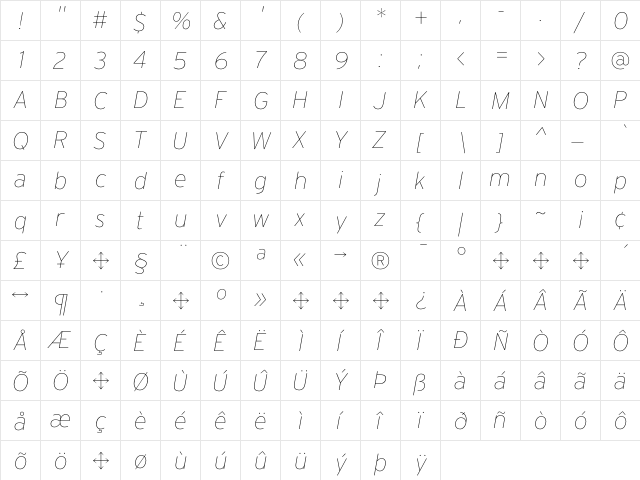
Interstate Thin Italic
Design Context for Interstate Typeface
Interstate is a composed and adaptable typeface that performs quietly and consistently across a wide range of design contexts. The slanted form adds forward momentum and visual energy. Its slender proportions lend an understated elegance to any composition.
Pro Tip: Try Interstate for annotation and caption copy alongside an upright companion — the contrast in angle creates a dynamic but ordered typographic system.